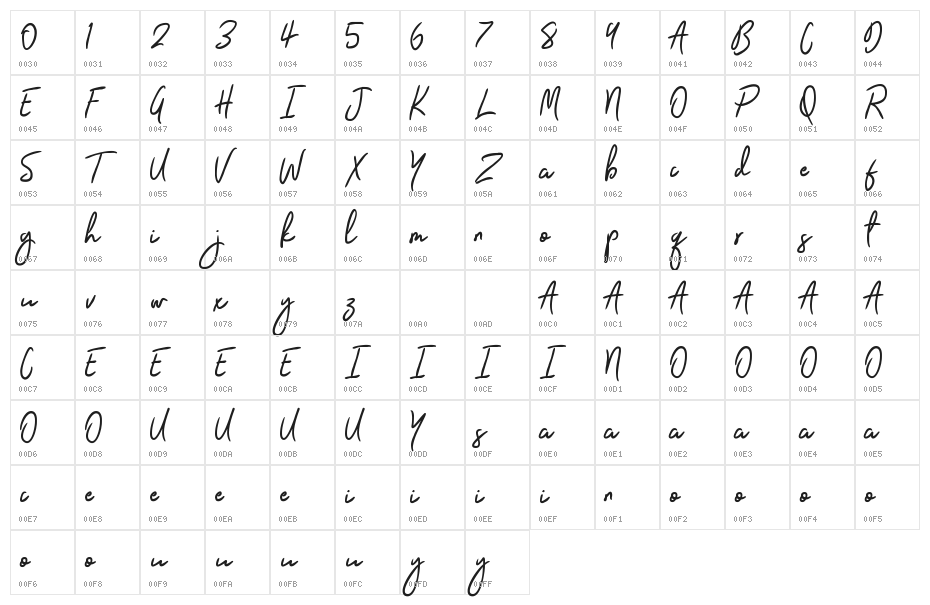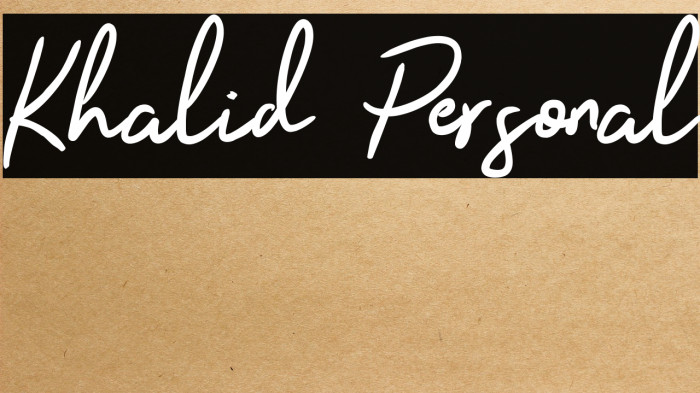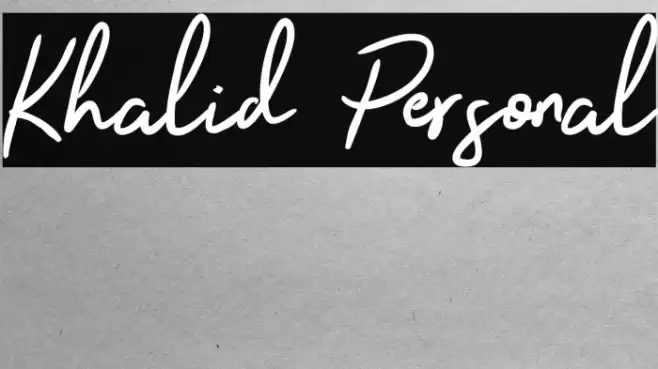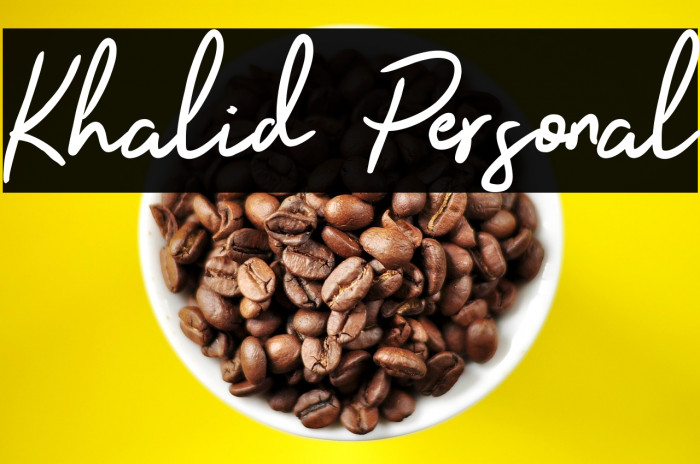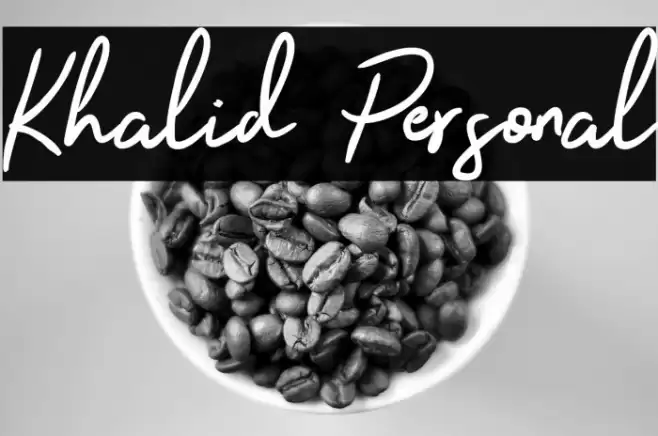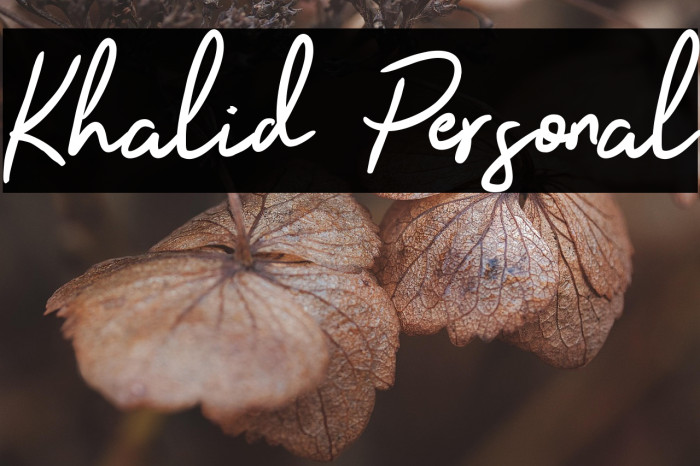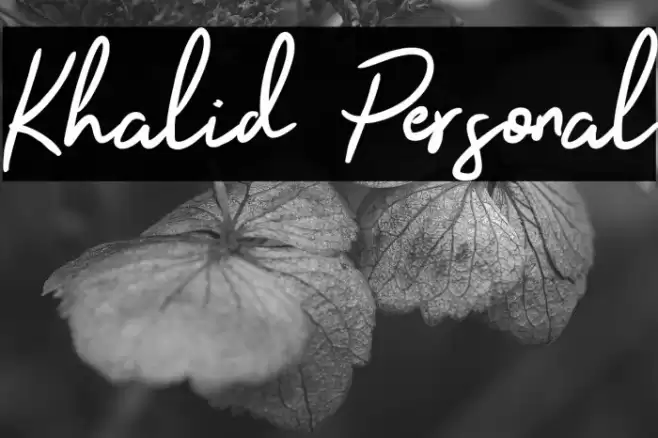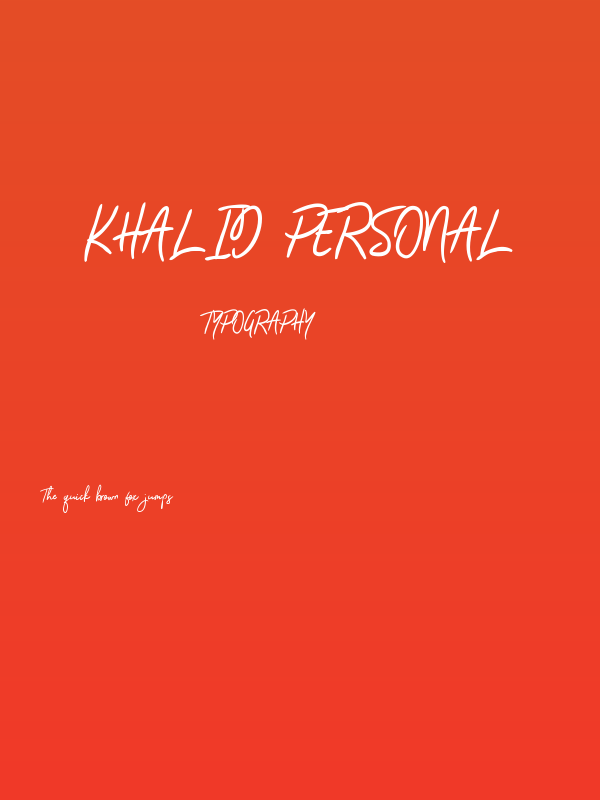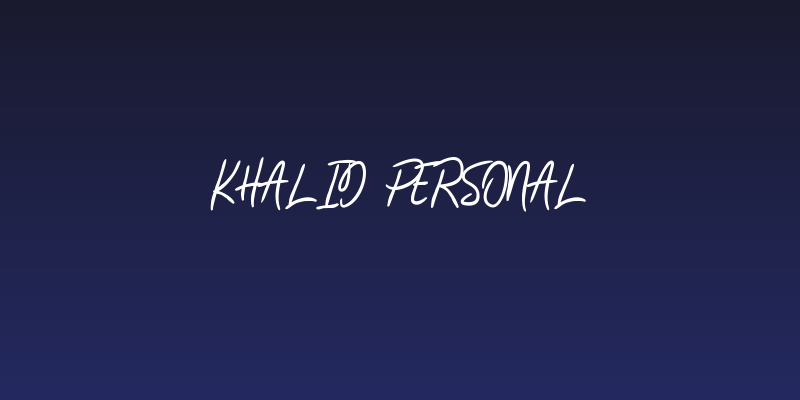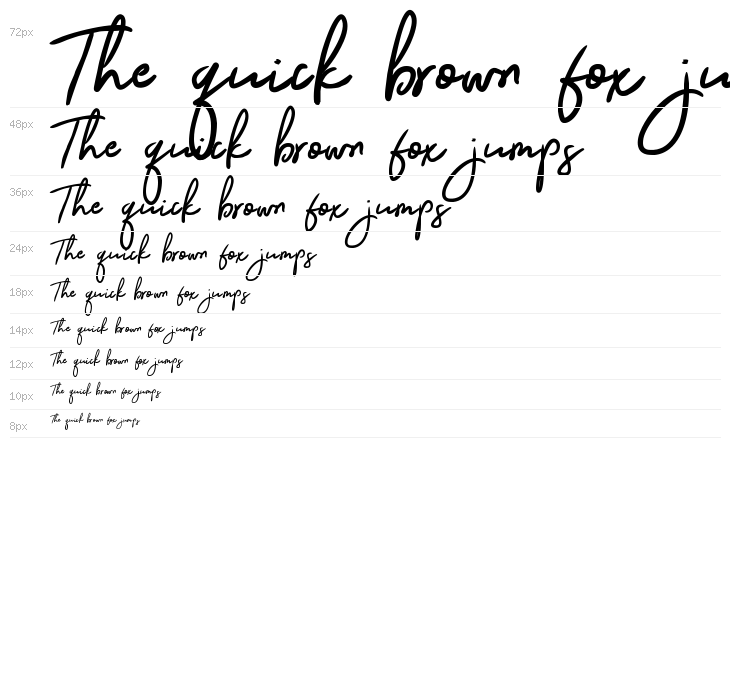
Khalid Personal Font
Khalid Personal Description
This font features a dynamic and expressive handwritten style, characterized by its fluid and connected letterforms. The uppercase letters are bold and slightly slanted, giving a sense of movement and energy. The lowercase letters are more compact and maintain a consistent flow, enhancing the handwritten feel. The numbers are clear and distinct, while the special characters blend seamlessly with the overall style. This font exudes a personal and informal touch, making it ideal for projects that require a human and approachable aesthetic.
Proposed ProjectsIdeal for personal branding, greeting cards, invitations, and creative projects that require a personal touch.